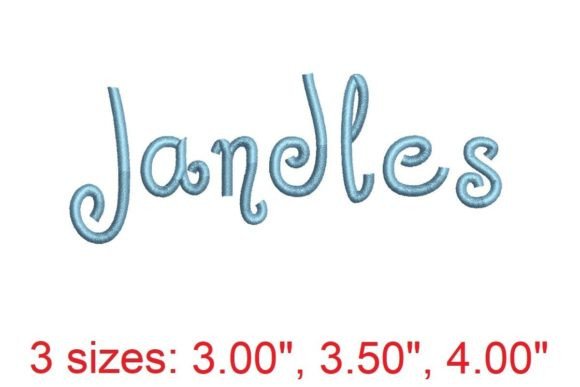
Jandles Embroidery Font Review
As an embroidery designer with years of experience, I’ve come across countless machine embroidery designs, but Jandles Embroidery Font stands out for its timeless elegance and versatility. Whether you're creating handmade gifts, holiday decorations, or seasonal apparel, this font offers a refined look that can elevate your craft. In this review, I’ll walk through how Jandles performs in real-world situations, where it shines, and where to be cautious.
The First Impression: A Touch of Elegance
From the moment I saw Jandles Embroidery Font, I was struck by its balanced proportions and graceful curves. It exudes a sense of sophistication that feels both modern and classic. The design is clean enough for everyday use yet detailed enough to add a touch of luxury to any project. Whether you're working on a baby onesie, a kitchen towel, or a holiday ornament, Jandles brings a level of polish that’s hard to match.
The font has a warm, inviting tone that works well for family-themed items, personalized gifts, and home decor. Its decorative style isn’t overly ornate, making it suitable for a wide range of applications. It feels just right for back-to-school projects, but also for more formal occasions like weddings or religious celebrations.
Real-World Use: Holiday Embroidery and Seasonal Appeal
When building a seasonal shop collection, the right embroidery file can make all the difference. Jandles Embroidery Font excels in holiday embroidery scenarios, from festive tote bags to cozy pillow covers. Its legibility and visual appeal make it ideal for gift bundles, Etsy listings, and craft fair displays. Customers looking for personalized gifts will appreciate the attention to detail and the ability to customize with different thread colors and fabric textures.
For small shop products, Jandles adds value by offering a premium feel without the complexity of more intricate fonts. It’s perfect for limited edition apparel, family matching items, and embroidered patches. The font also works well with printable mockups and social media previews, helping to showcase your designs effectively.
Where to Be Cautious: Practical Considerations
While Jandles Embroidery Font is versatile, there are some situations where it may not perform as expected. For instance, if you’re working with small hoop sizes, the font’s fine details might be challenging to stitch accurately. Similarly, when using tiny lettering, the design could lose clarity, especially on thick towels or dark fabrics.
On stretchy garments or curved caps, the font may require adjustments to ensure proper placement and stitching. Metallic threads can also affect the appearance, so testing is essential. If you’re planning to use Jandles on items that will undergo repeated washing, it’s wise to check the stitch density and stabilizer use to maintain quality over time.
Impact on Buyer Emotion and Product Value
One of the most important aspects of any embroidery design is its ability to evoke emotion. Jandles Embroidery Font does this beautifully. It conveys a sense of care and craftsmanship that resonates with customers looking for meaningful handmade gifts. Whether it's a personalized apron for a loved one or a holiday ornament for a family tradition, the font adds a layer of thoughtfulness that enhances the overall product value.
As an Etsy seller, I know that visual recognition and brand consistency are key to customer trust. Jandles helps create a cohesive look across your product line, making it easier for buyers to identify and connect with your brand. Its elegant style also supports engagement during busy holiday shopping periods, as it appeals to a wide audience looking for unique, high-quality items.
Embroidery Designer Notes: Best Practices
To get the best results with Jandles Embroidery Font, I recommend testing thread colors on both light and dark fabrics to ensure visibility and vibrancy. Check the stitch density to avoid puckering or distortion, especially on delicate materials. Confirm the hoop size needed for your project and always use the proper stabilizer to keep the design secure during stitching.
Creating realistic mockups is crucial for showcasing your finished product, whether it's for an Etsy listing or a craft fair display. After stitching, take time to review small details for accuracy and quality. Planning matching color palettes and confirming commercial licensing before selling finished products are also essential steps to ensure compliance and customer satisfaction.
For those looking to expand their digital embroidery file library, Jandles Embroidery Font is a valuable addition. Its adaptability makes it suitable for a variety of applications, from sweatshirt embroidery to table linens. With careful consideration and proper execution, this font can become a staple in your seasonal embroidery collection.